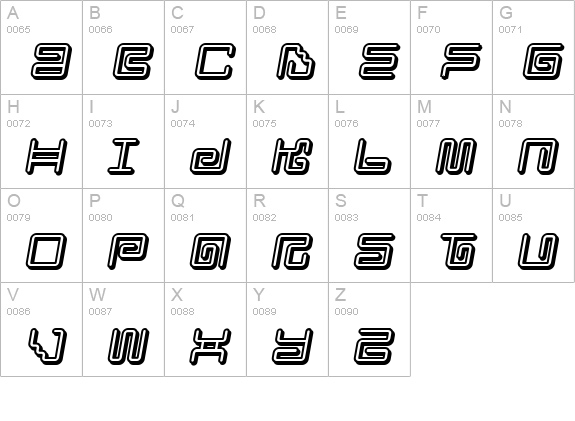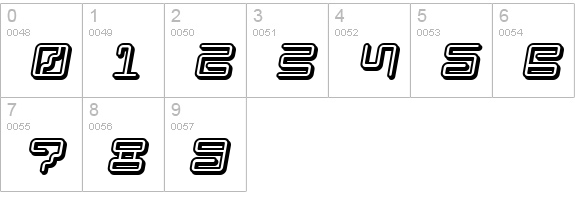
Introducing Iron Lounge Smart 2, a sleek and modern font that exudes sophistication and elegance. With its clean lines and sharp angles, this font is perfect for projects that demand a contemporary and professional touch. Iron Lounge Smart 2 is not only visually appealing, but it also offers a wide range of versatility. Whether you're designing a logo, creating a stylish flyer, or even crafting a captivating website, this font will effortlessly elevate your work to the next level. One of the best aspects of Iron Lounge Smart 2 is that it is freely available to download at FontsMarket.com. Yes, you read that right! This exceptional font can be yours without spending a dime. FontsMarket.com is your go-to destination for high-quality fonts, and Iron Lounge Smart 2 is just one of the many gems waiting to be discovered. The creators of Iron Lounge Smart 2 understand the importance of accessibility and believe that everyone should have access to top-notch design resources. That's why they decided to offer this font free of charge, ensuring that designers, creatives, and enthusiasts alike can bring their visions to life without breaking the bank. So, why wait? Unlock the potential of your designs with Iron Lounge Smart 2. Download it now from FontsMarket.com and experience the seamless blend of style and functionality that this font has to offer. Don't miss out on this opportunity to enhance your projects and make a lasting impression.